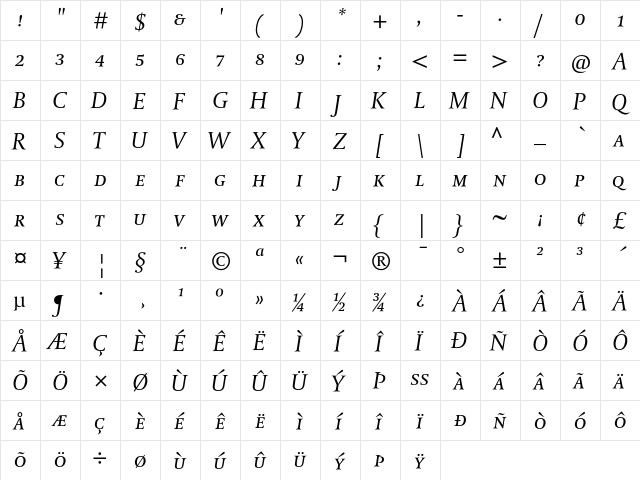
DTL Paradox T Caps Italic
Design Context for DTL Paradox Typeface
DTL Paradox offers clean, dependable letterforms without strong stylistic allegiance, making it a practical choice for designers who need flexibility. The dynamic lean of this cut emphasises speed and emphasis in any layout.
Pro Tip: Use DTL Paradox for emphasis, pull quotes, and subheadings where its slanted energy can add rhythm to the layout.